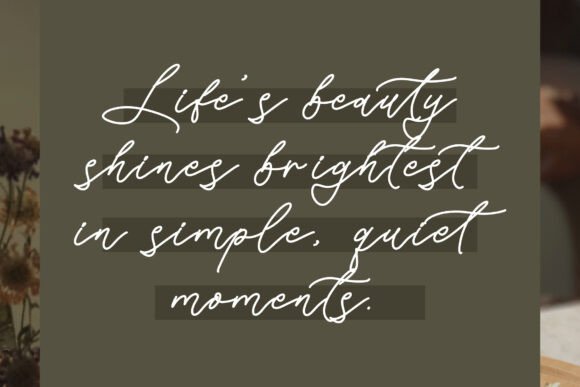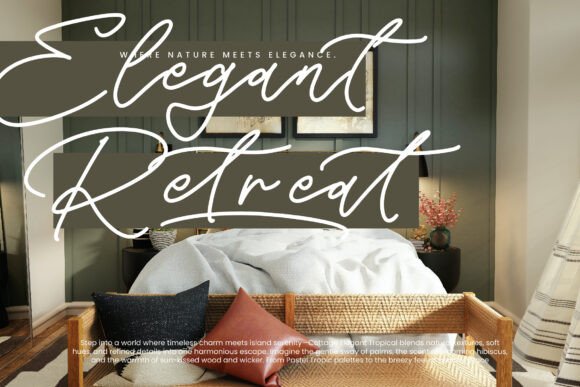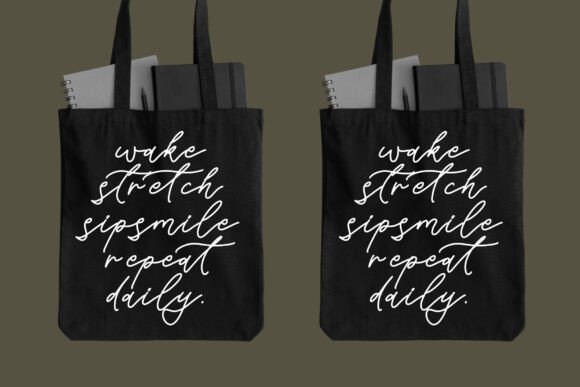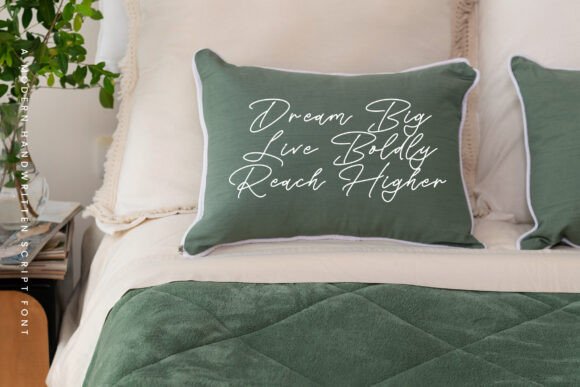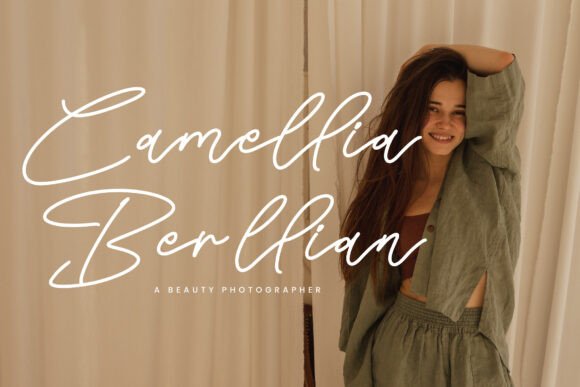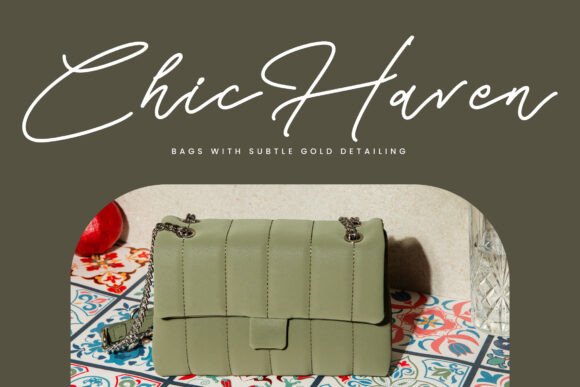
Introduction to Silent Orchid Font
Have you ever stared at a blank page, searching for the perfect font to bring your creative vision to life? The moment of truth arrives when you stumble upon the perfect design element, and your project suddenly takes shape. For many designers, this moment is a game-changer. Today, we’re excited to introduce you to the Silent Orchid Font, a stunning monoline handwritten script font that’s sure to elevate your next luxury project.
Whether you’re working on a high-end logo, branding project, or product packaging, the Silent Orchid Font is an exceptional design resource that offers a touch of sophistication and elegance. With its transparent background and high-quality design, this font is perfect for creating a premium look that’s sure to impress. And the best part? It’s available for free download, making it an excellent addition to any designer’s toolkit.
As a valuable resource for designers, the Silent Orchid Font is an excellent choice for a wide range of creative projects, from mugs and quotes to posters and business cards. Its versatility and high-quality design make it an essential tool for anyone looking to add a touch of luxury to their work.
Key Features of Silent Orchid Font
- Unique, elegant design with a delicate touch, perfect for creative projects and design resources.
- High-quality font with a transparent background, ideal for designs requiring a clean and minimalist look.
- Designed to be versatile, the Silent Orchid Font is suitable for a wide range of applications, including logos, headings, and body text.
Honest Review: Silent Orchid Font
As a designer, I’m always on the lookout for high-quality fonts that can elevate my creative projects. Recently, I stumbled upon the Silent Orchid Font, and I must say, it’s a great addition to any design resource.
One of the standout features of the Silent Orchid Font is its beautiful, elegant design. It’s perfect for projects that require a touch of sophistication and refinement. The font is highly versatile and can be used for a wide range of creative projects, from wedding invitations to corporate branding.
- ✨ Beautiful, elegant design that’s perfect for sophisticated projects
- ✨ Highly versatile and can be used for a wide range of creative projects
- ⚠️ The font may not be suitable for projects that require a bold, attention-grabbing font
- ⚠️ The transparent background may not be compatible with all design software
Overall, I’m impressed with the Silent Orchid Font. It’s a high-quality design resource that’s perfect for designers who want to add a touch of elegance to their creative projects. With its beautiful design and versatility, it’s definitely worth considering for your next design project.
Tips for Getting the Most Out of Silent Orchid Font
To get the most out of Silent Orchid Font, use it as a design resource for your creative project. Combine it with other high-quality fonts and graphics to create a unique and engaging design. Experiment with different font sizes, colors, and styles to find the perfect combination for your project.
The Silent Orchid Font is perfect for a variety of creative projects, including graphic design, digital art, and typography. It’s also great for use in presentations, documents, and websites. With its transparent background and high-quality design, it’s a valuable addition to any design resource collection.